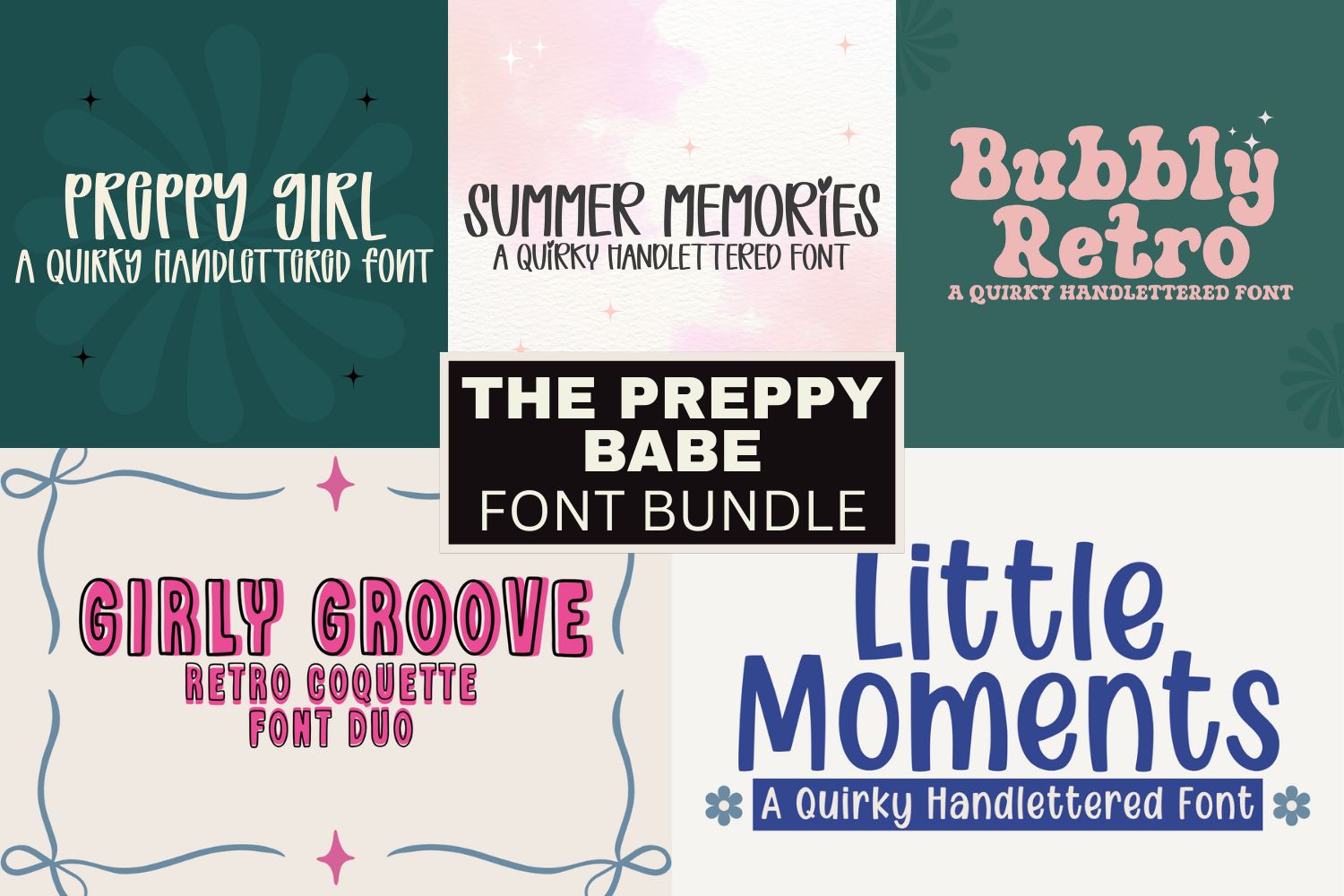
The Preppy Babe Font Bundle
The Preppy Babe Font Bundle brings together six fun, quirky, and hand-lettered fonts perfect for all things cute, retro, and preppy.
• Coquette aesthetic designs 🎀
• Cute quotes, logos & branding
• Retro posters & party invites
• Stickers, sublimation, scrapbooking
• Social media & shop graphics
• And much more
The Preppy Babe Font Bundle